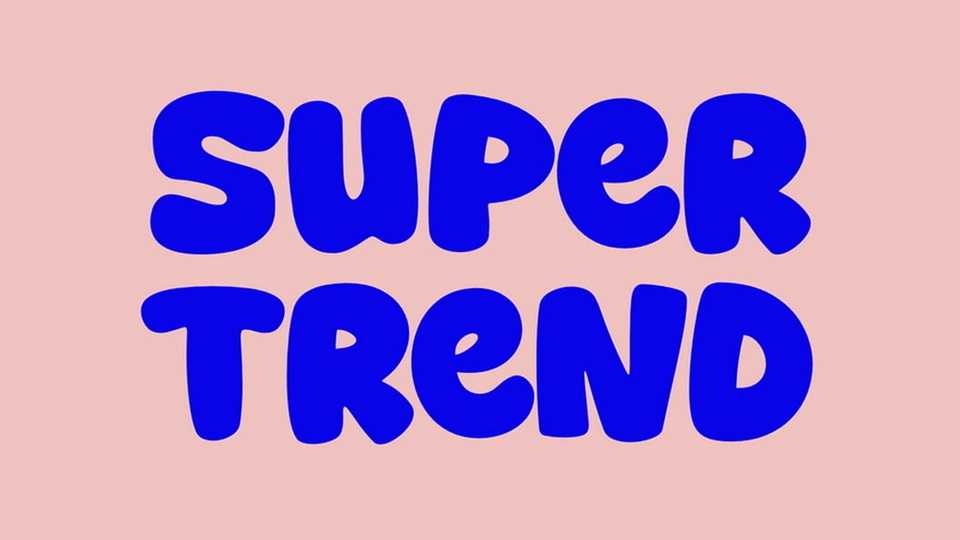
Download Super Trend font, a bold and playful display typeface designed to bring joy and energy to any project with its chunky, rounded letterforms and soft curves.